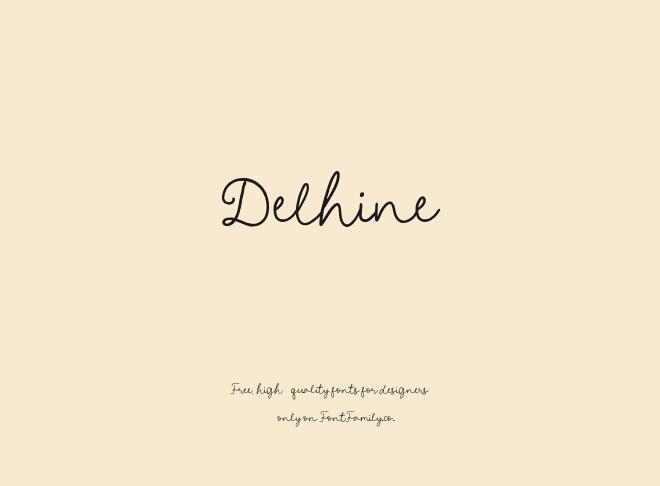
Delhine Font
Delhine Font is a modern, elegant, and decorative handwritten font. It is characterized by its unique, flowing letterforms that exude a sense of sophistication and creativity. The font is reminiscent of calligraphic writing, but with a contemporary twist. Ideal for adding a personal touch to your design projects, Delhine Font is perfect for branding, logo design, invitations, and social media posts. It is similar to other handwritten fonts but stands out for its elegance and modernity. The font is free for personal use, making it a great choice for designers on a budget. Its versatility and stylish appeal make it a must-have for any designer's toolkit.